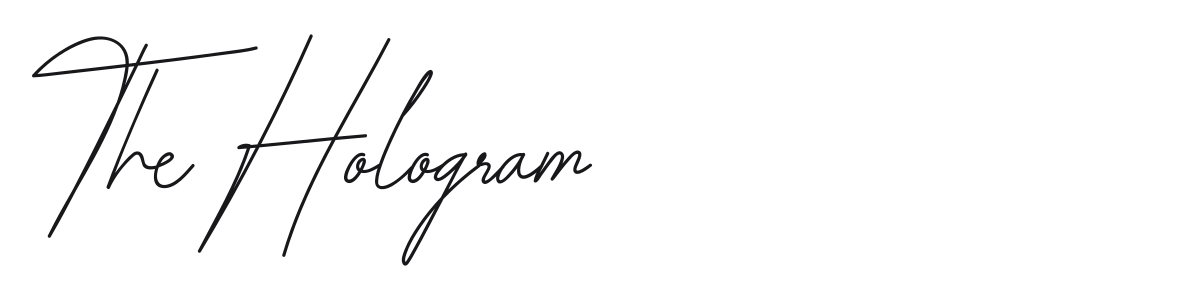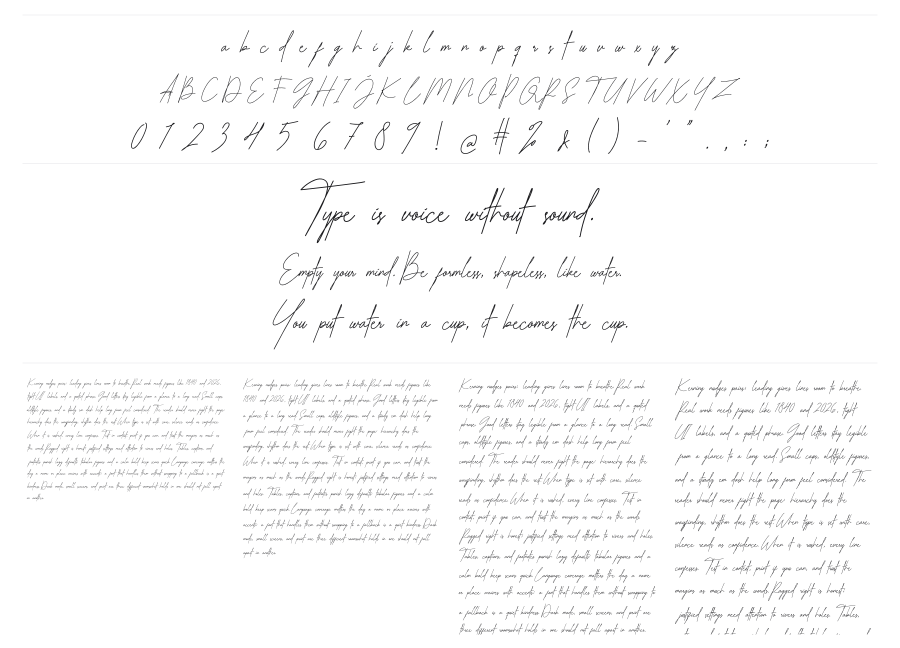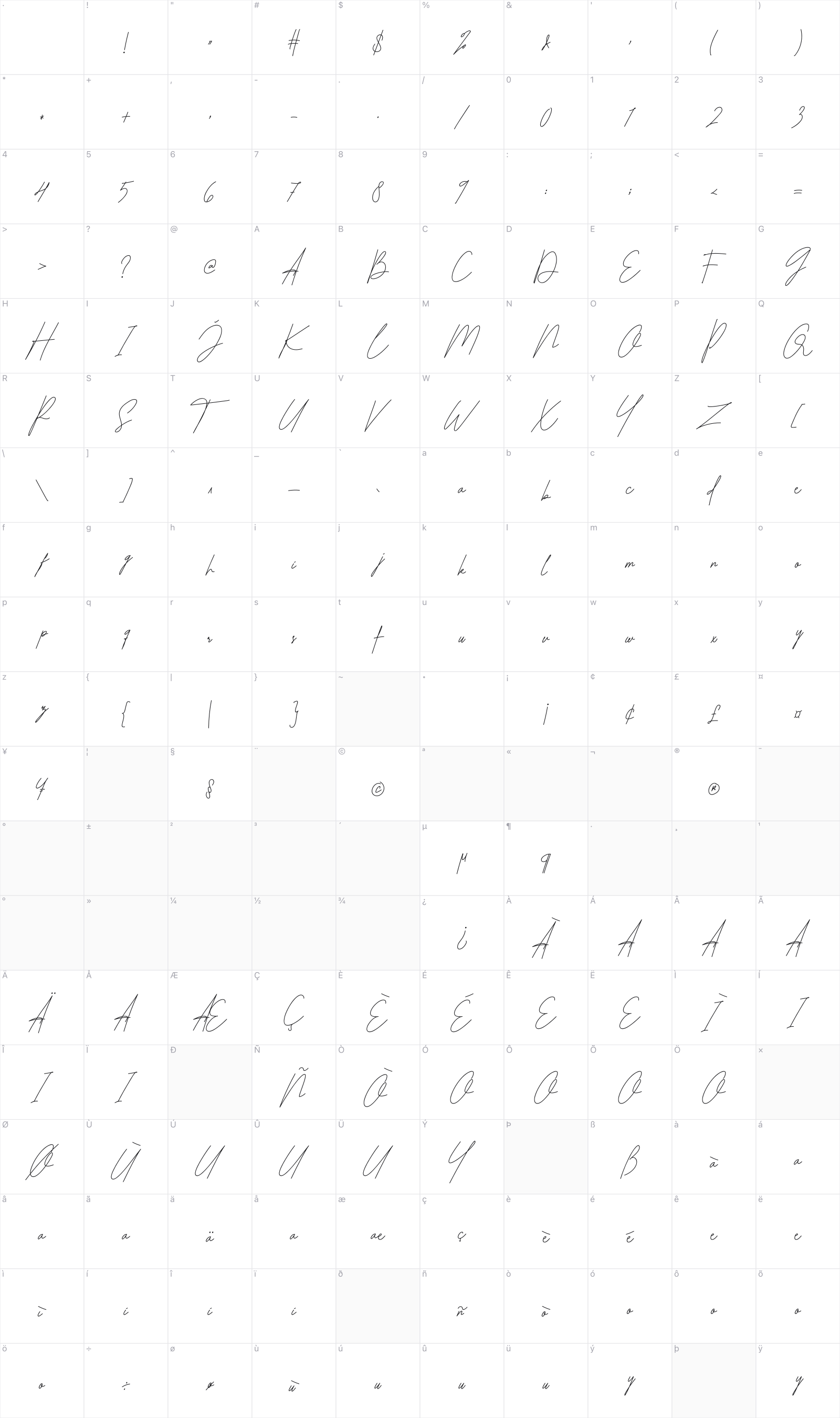
The Hologram
The Hologram is an ultra-thin casual script with sweeping strokes and a relaxed, flowing rhythm. Its calligraphic roots show in the long ascenders and descenders, but the overall feel is contemporary and light. Works best large, where the fine strokes and loose connections read as confident and effortless.